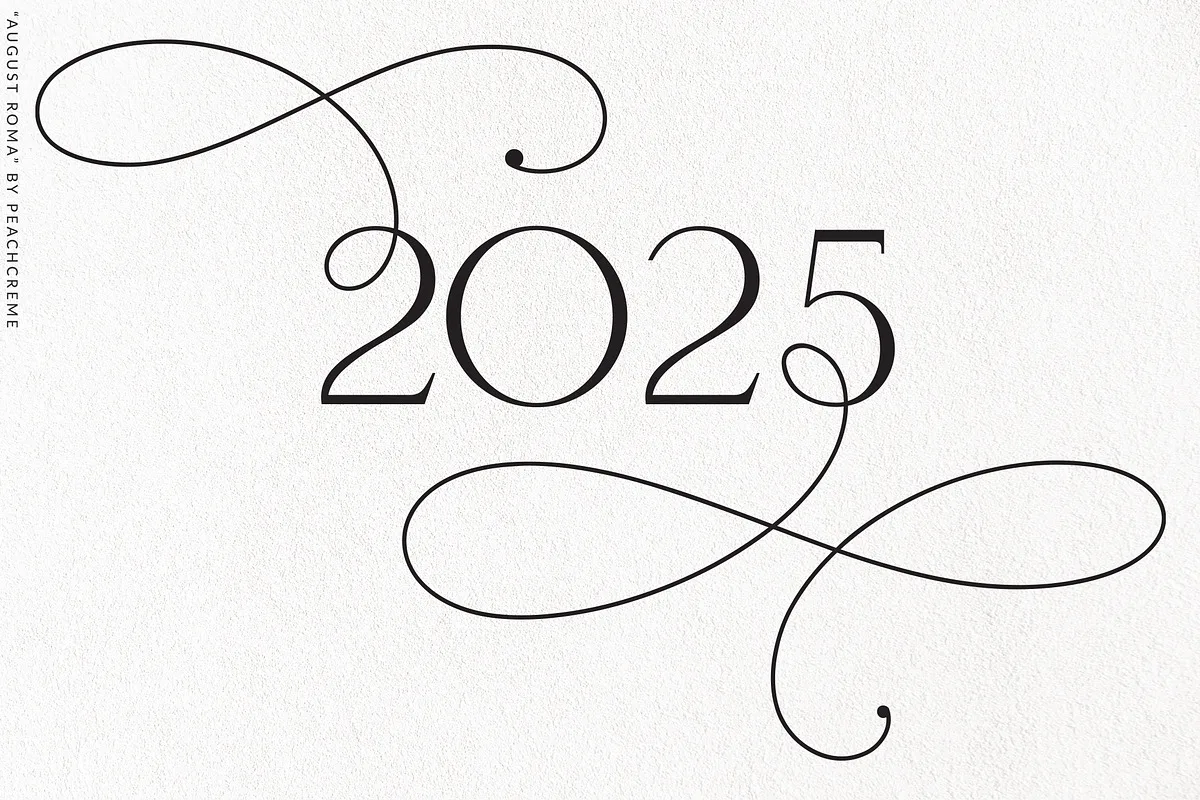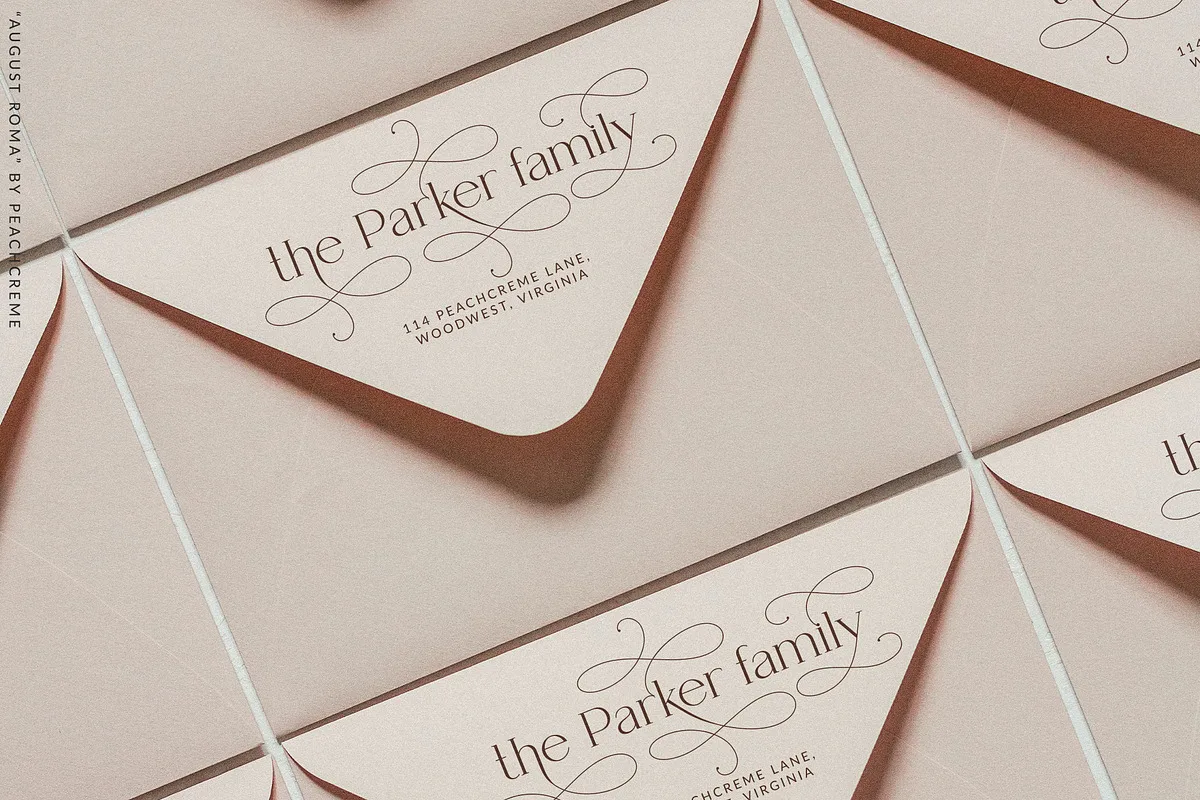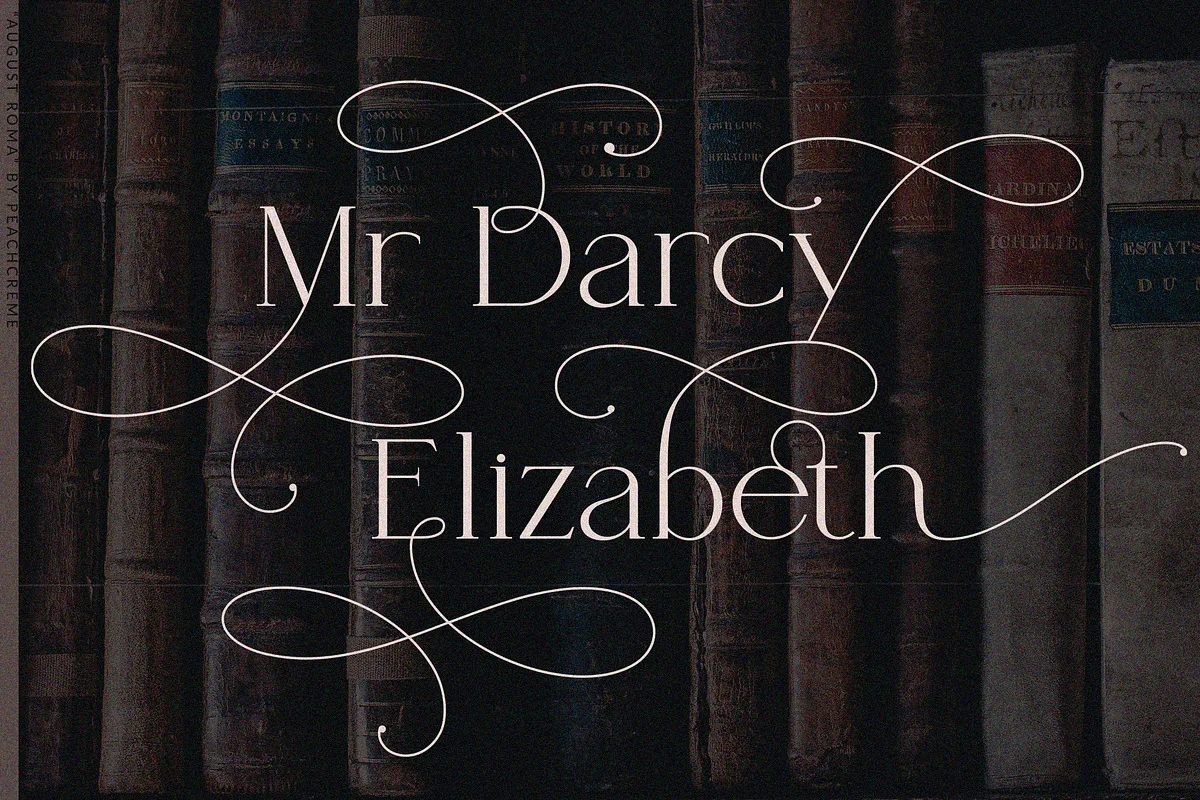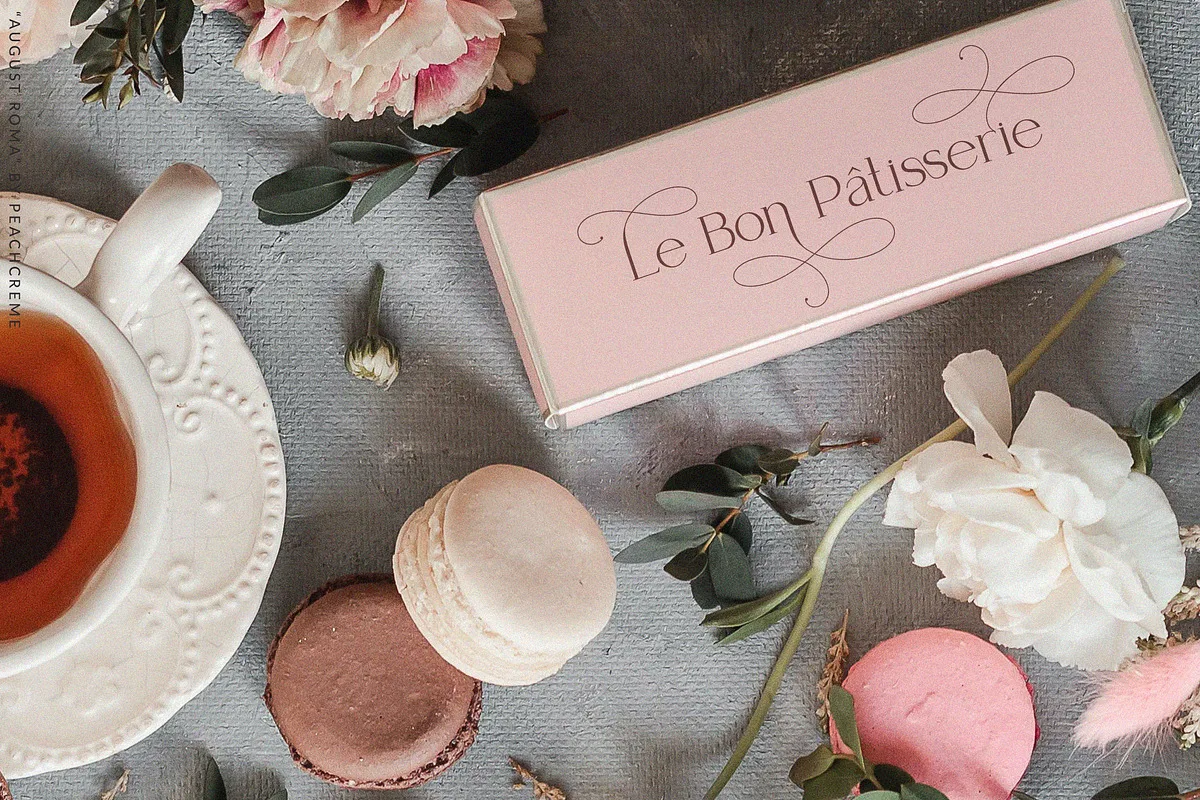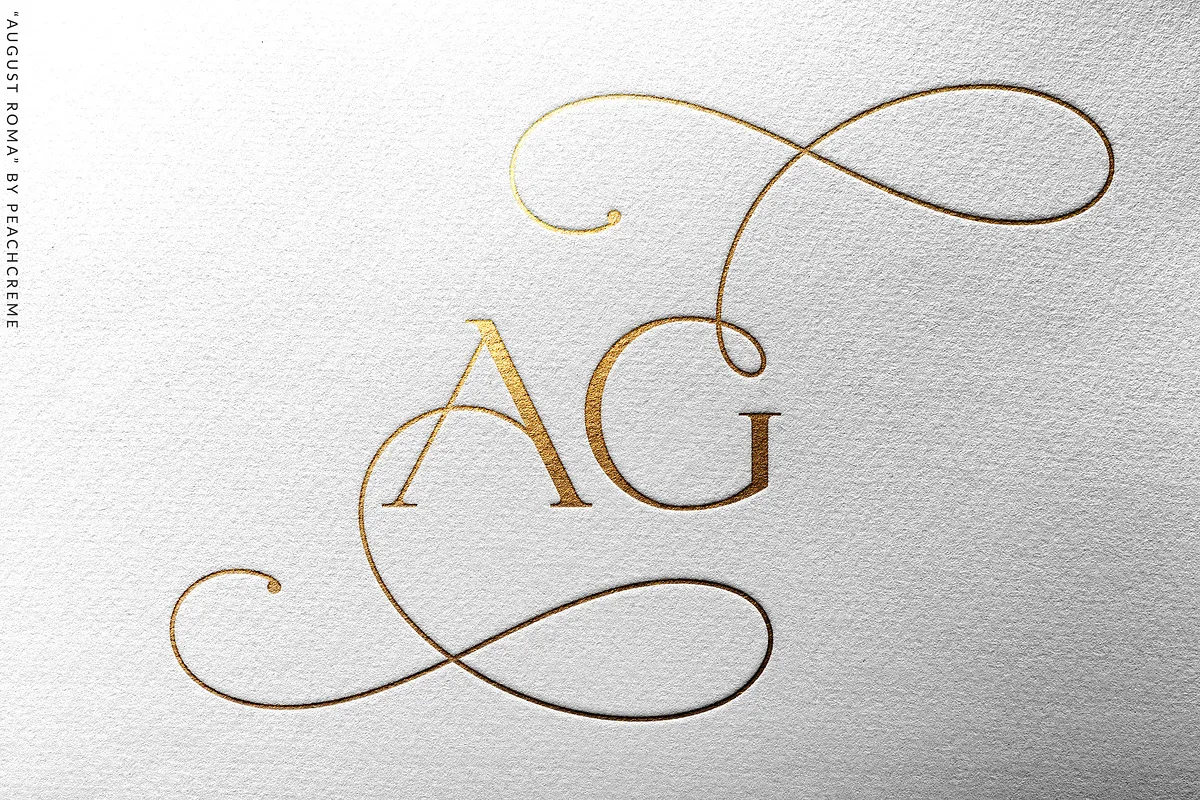
August Roma is a luxury serif from PeachCreme, built around one idea: swashes. The base letterforms are a clean, slightly condensed high-contrast serif, but almost every character has an extended alternate with a sweeping tail, and using those well is the whole craft of setting this font.
Swashes on uppercase, lowercase, ampersand and numerals
Most swash serifs decorate the capitals and stop there. August Roma includes swash forms across uppercase and lowercase letters, the ampersand, and the numerals — the numeral swashes in particular are rare and make it genuinely useful for dates on wedding stationery and event material, where a plain figure next to a decorated capital always looks unfinished.
How to use the swashes without overdoing it
The usual mistake is turning on every alternate at once, which produces a tangle of crossing tails. The convention that works: one swash at the start of a line and one at the end, plain forms everywhere in between. Never set a swash capital next to another swash capital, and never use swash forms in all-caps settings — the tails are drawn to flow into lowercase and will collide. Give the line extra leading too; the descending tails need vertical room that default line spacing does not provide.
Does August Roma include swashes for numbers?
Yes. Swash alternates cover uppercase and lowercase letters, the ampersand and the numerals. Numeral swashes are uncommon in this category and make the font particularly suited to dates on wedding and event stationery.